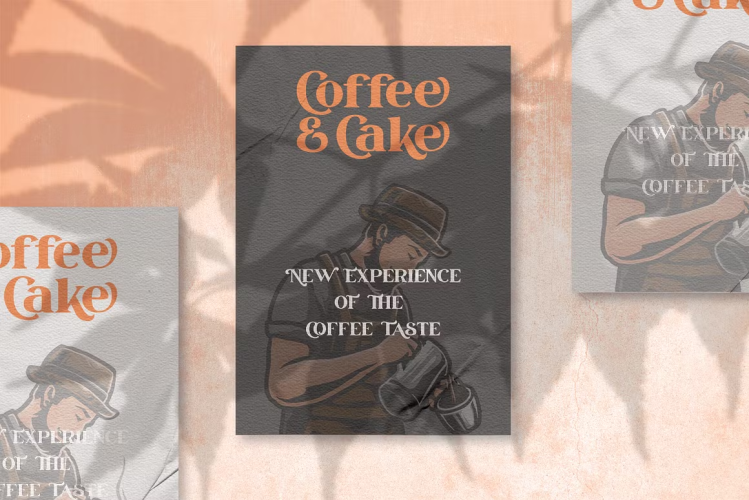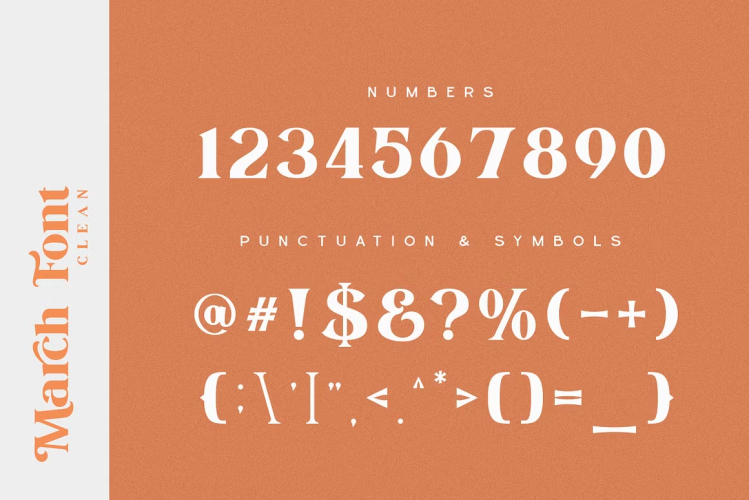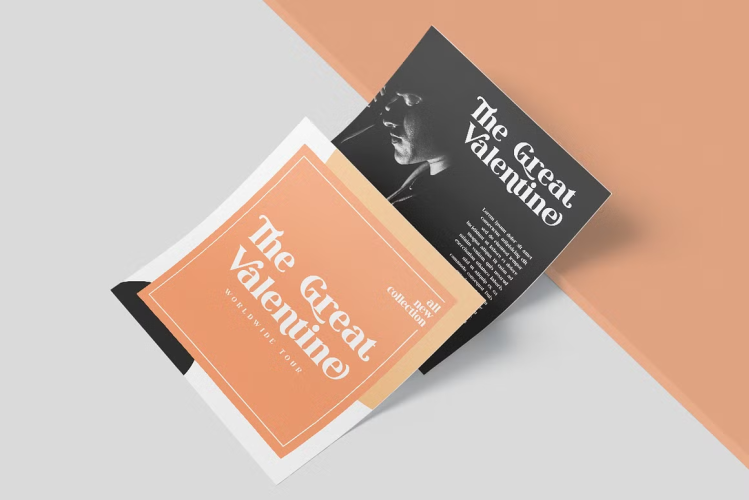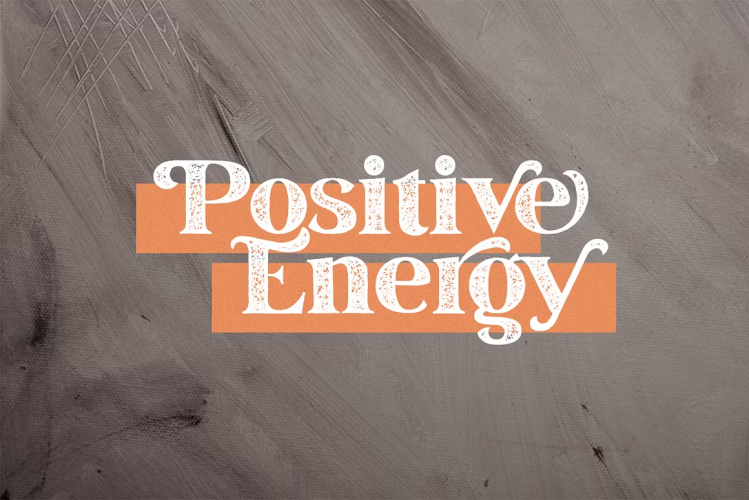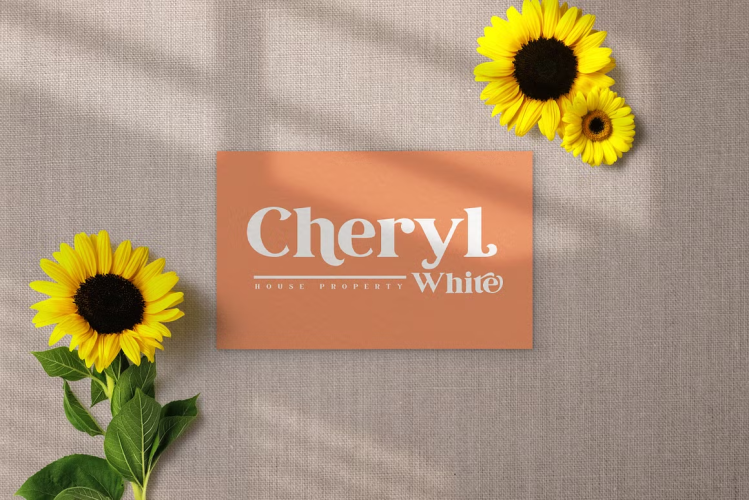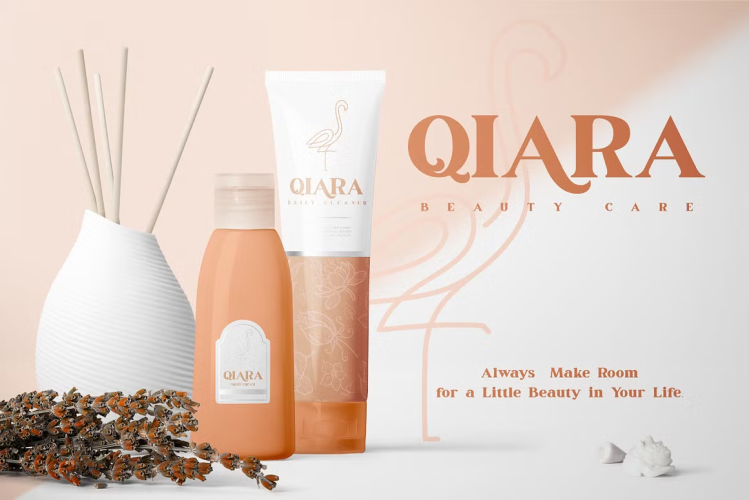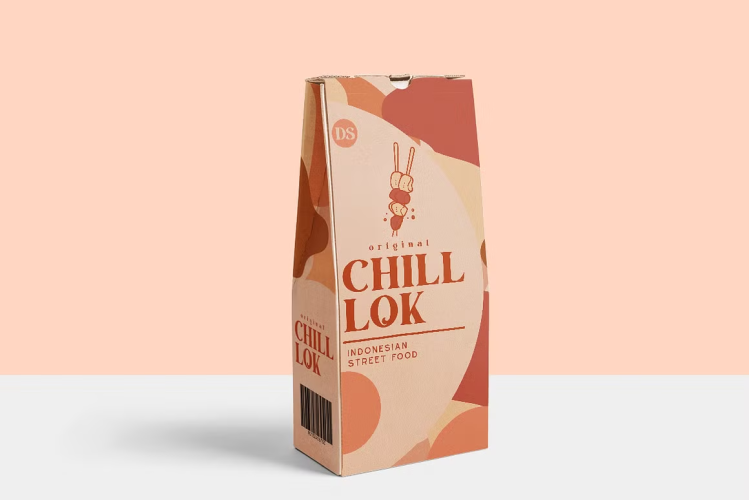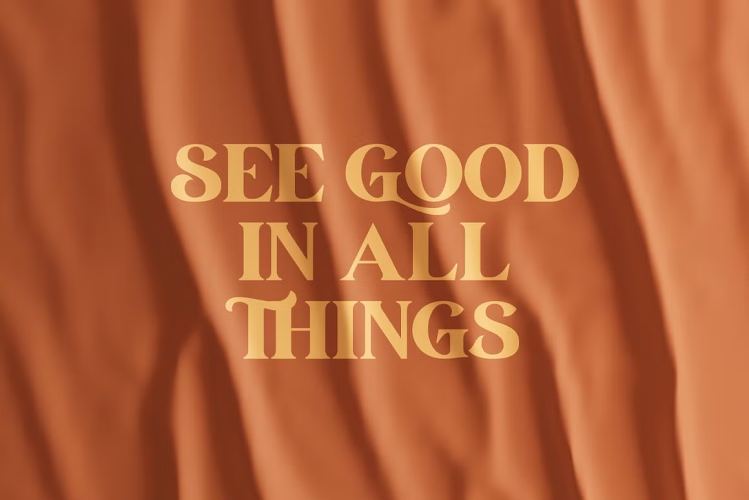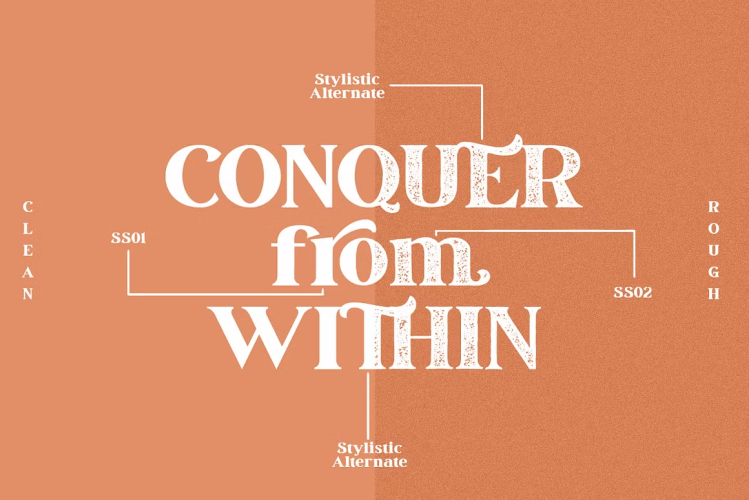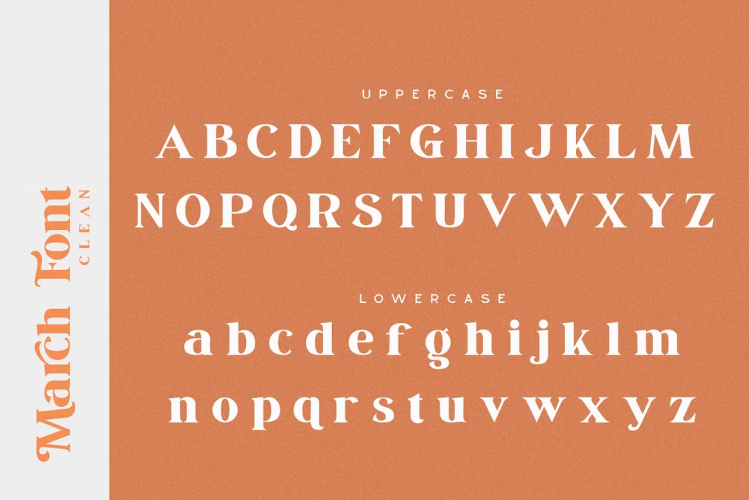
March Font
The March font is a modern and clean display (Serif) font created by our talented font designer. The design of the typeface will make your design more beautiful and insp…
The March font is a modern and clean display (Serif) font created by our talented font designer. The design of the typeface will make your design more beautiful and inspiring. This font will suit various designs, such as posters, banners, logos, book covers, headings, printed products, merchandise, social media, and more. Look at the preview to find out more ways to use this font.
March Font gives long-form text a classic, trustworthy rhythm — ideal for magazine spreads, annual reports and book interiors.
Pair March Font with generous letter-spacing for wordmarks in fashion, hospitality, wine and jewellery branding.
March Font is a Serif Fonts typeface tagged Branding, Clean, Display, Editorial. It works well for headlines, logos, posters, social media graphics and branding projects that need a distinctive serif fonts look.